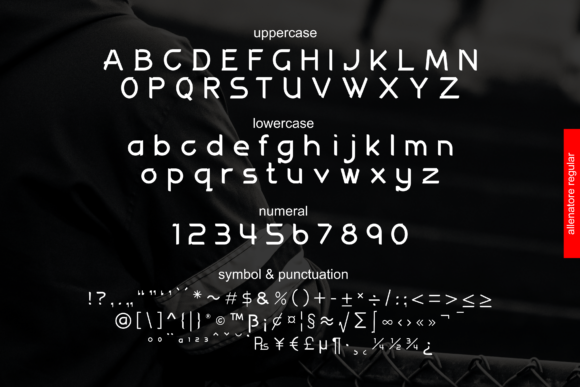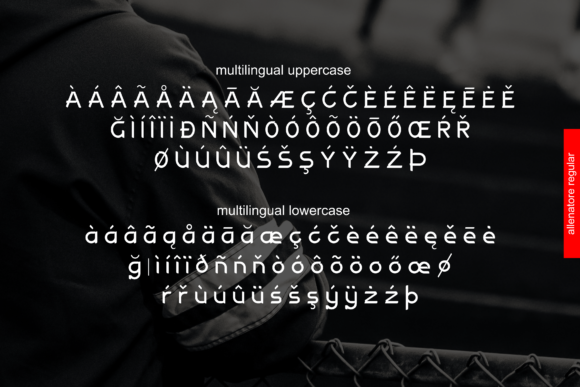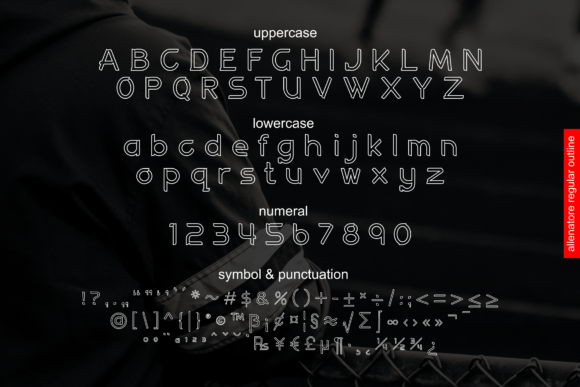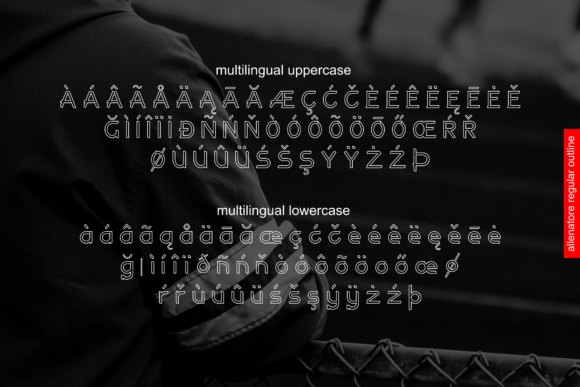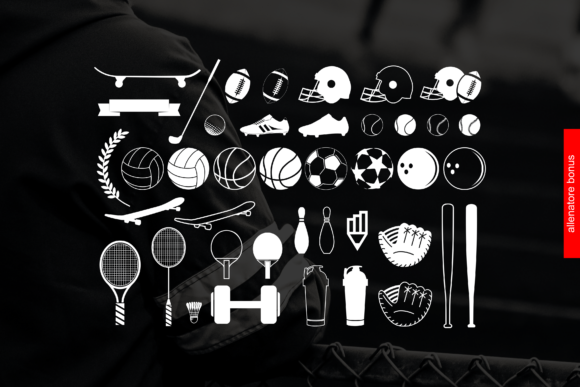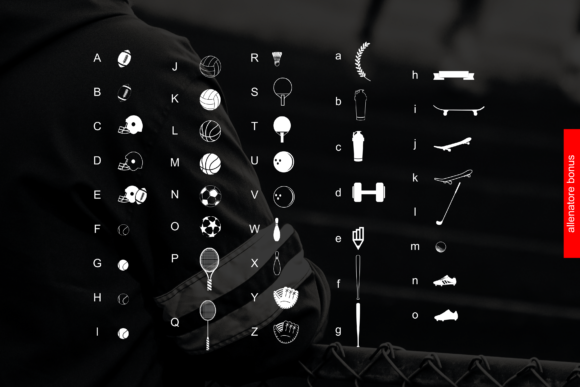
Introducing the Allenatore Family Font: Elevate Your Designs with a Sporty Twist
Are you a designer or crafter looking for a font that can add a touch of sportsmanship to your projects? Look no further than the Allenatore Family Font. This versatile font family is designed to help you create stunning visuals that are perfect for a wide range of applications. In this article, we’ll dive into the features and benefits of the Allenatore Family Font, and explore how it can elevate your designs.
What is the Allenatore Family Font?
The Allenatore is a sporty display family font that is designed to bring a sense of energy and dynamism to your designs. With 16 weights and 41 sport icons, this font family offers a wide range of possibilities for creative expression. Whether you’re working on a logo, branding project, or simply looking for a font to add a touch of personality to your designs, the Allenatore Family Font is an excellent choice.
Key Features of the Allenatore Family Font
- 16 Weights: The Allenatore Family Font comes in 16 different weights, allowing you to choose the perfect level of boldness or subtlety for your design.
- 41 Sport Icons: In addition to its comprehensive range of weights, the Allenatore Family Font also includes 41 sport icons that can be used to add an extra layer of personality to your designs.
- Versatile: The Allenatore Family Font is perfect for a wide range of applications, including logos & branding, headlines, book content, photography, invitations, watermarks, advertisements, stationery, labels, product packaging, and much more!
Benefits of Using the Allenatore Family Font
So why choose the Allenatore Family Font for your next design project? Here are just a few benefits of using this versatile font:
- Instant Recognition: The sporty design of the Allenatore Family Font makes it perfect for creating visually striking designs that grab attention.
- Flexibility: With 16 weights and 41 sport icons, the Allenatore Family Font offers a wide range of creative possibilities.
The Allenatore Family Font is perfect for designers and crafters who are looking for a font that can add a touch of personality to their projects. Whether you’re working on a logo, branding project, or simply looking for a font to add a touch of whimsy to your designs, the Allenatore Family Font is an excellent choice.
How to Use the Allenatore Family Font
In conclusion, the Allenatore Family Font is a versatile and sporty display font that is perfect for designers and crafters who are looking for a font that can add a touch of personality to their projects. With its 16 weights and 41 sport icons, this font family offers a wide range of creative possibilities. Whether you’re working on a logo, branding project, or simply looking for a font to add a touch of whimsy to your designs, the Allenatore Family Font is an excellent choice.